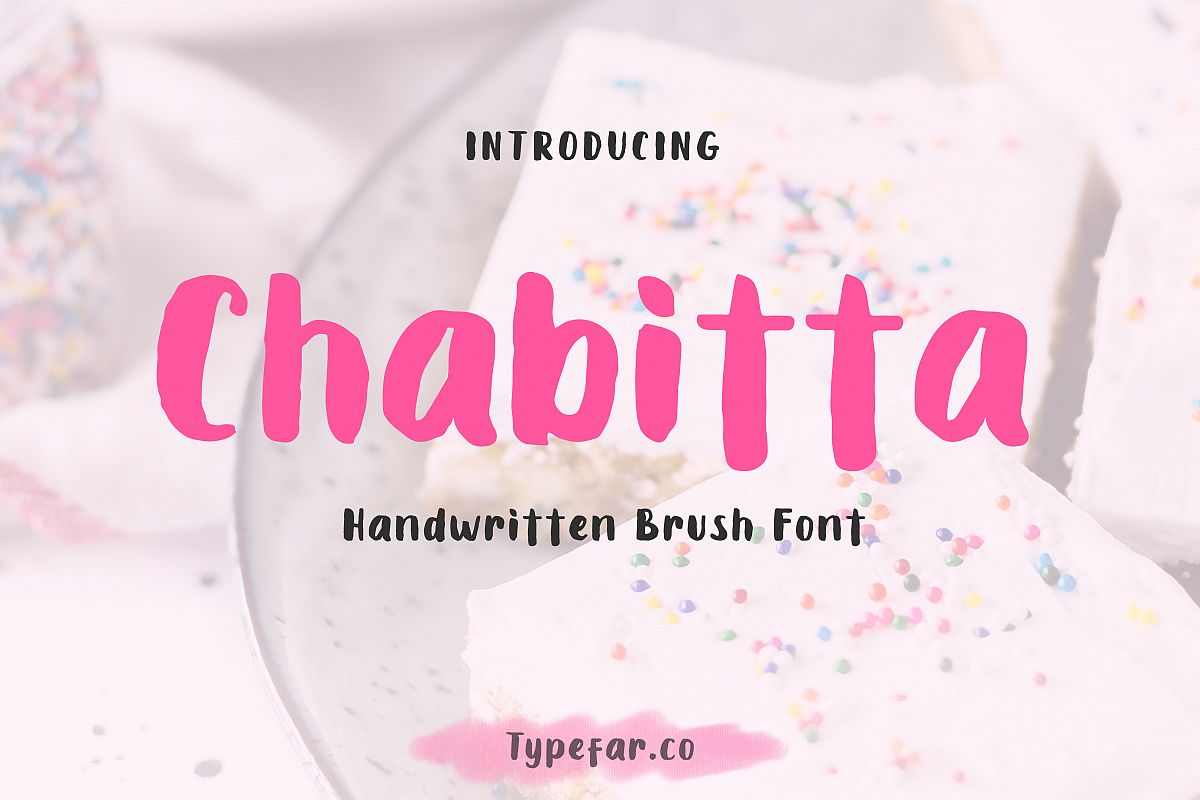
Chabitta
Holla... introduce my new product, Chabitta Font. chabitta font is handwritten brush font. This font is suitable for use for your designs. such as book covers, posters, callenders, printed quotes and more..
-Chabitta font with a whole set of uppercase & lowercase.